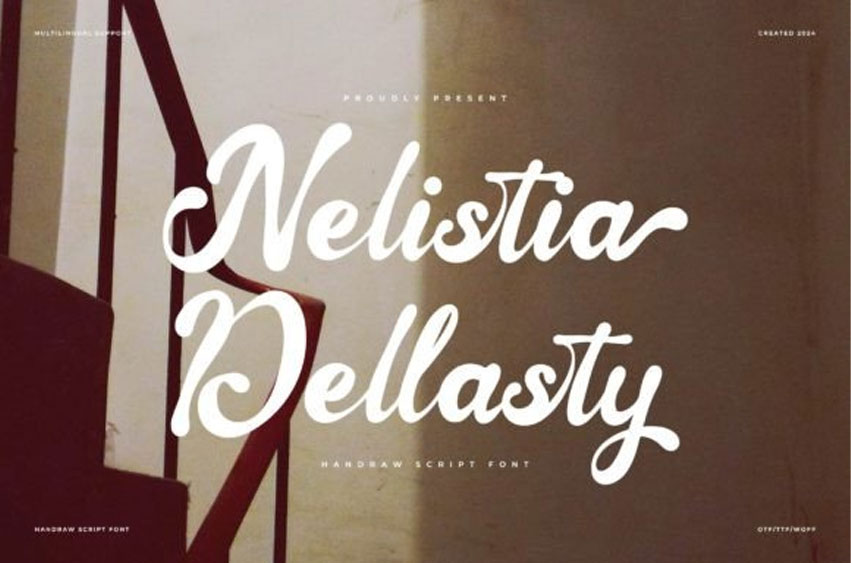
Nelistia Dellasty Font
Nelistia Dellasty Font is a beautiful hand-drawn script font with elegant, flowing letters. It’s perfect for creating stylish designs, like invitations, logos, or greeting cards.
The font has a smooth and natural look, giving your text a personal and artistic touch.